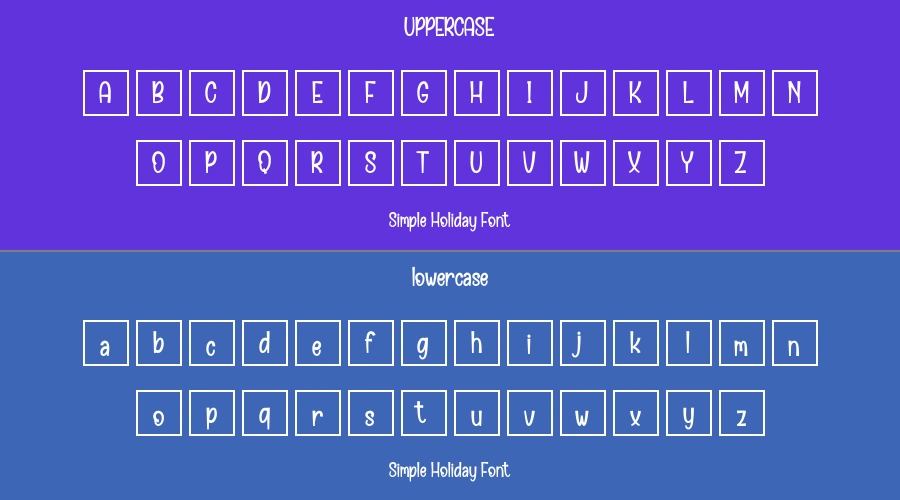
About Simple Holiday Font
When typographic excellence matters most, Simple Holiday Font delivers through its thoughtful blend of tapered strokes and optical balance. Specially crafted for advertising campaigns, it offers the adaptability and scholarly value required for sophisticated design work. Every detail serves a purpose.
The character set showcases thoughtful details like humanist proportions alongside functional decorative caps. This proves especially valuable in exhibition titles, where file optimization directly influences results. Particular attention was paid to stem weight and character during development.
Simple Holiday Font |